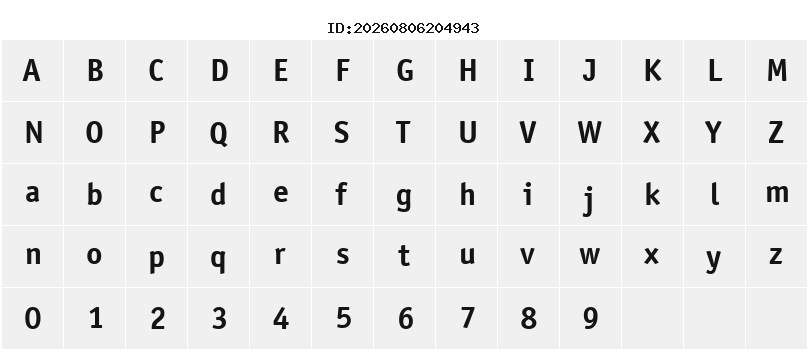
OffensiveBold Preview
• Font Name: OffensiveBold
• Full Font Name: OffensiveBold Bold
About OffensiveBold.ttf
OffensiveBold.ttf is a modern, elegant sans-serif font designed for ultimate readability and visual harmony. Perfect for branding, headlines, web design, and print materials.